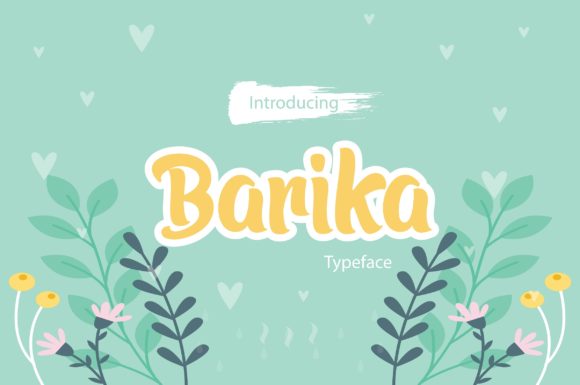
Stroll through a wonderland of letters with Barika, a captivating display font that will spark joy in your creative projects. Immerse yourself in its sugary charm, where each character dances with a touch of childish innocence. This font is an ode to the playful spirit of childhood, evoking memories of crayon-drawn masterpieces and laughter-filled playgrounds.
Let Barika lead you on an enchanting journey of imagination. Its soft, rounded edges cradle your words in warmth and comfort, making them leap off the page with a story to tell. Craft whimsical invitations that transport recipients to a world of wonder, design eye-catching posters that ignite curiosity, or create heartfelt greetings that touch the heart.
Barika's versatility is a symphony of possibilities. Its playful nature lends itself perfectly to children's books, where it can bring beloved characters to life with a touch of whimsy. Unleash your creativity in branding and packaging, letting Barika add a dash of sweetness to your products and capture the attention of your audience.
With Barika, every project becomes a blank canvas for your creativity. Its meticulously crafted curves and charming personality are a feast for the eyes, adding a touch of magic to your designs. Embrace the spirit of Barika and embark on a creative adventure that will leave a lasting impression.
Barika is more than just a font; it's an invitation to let your imagination soar. Immerse yourself in its enchanting embrace and watch as your creative visions come to life. Download Barika today and unlock a world of wonder, where every design tells a captivating story.